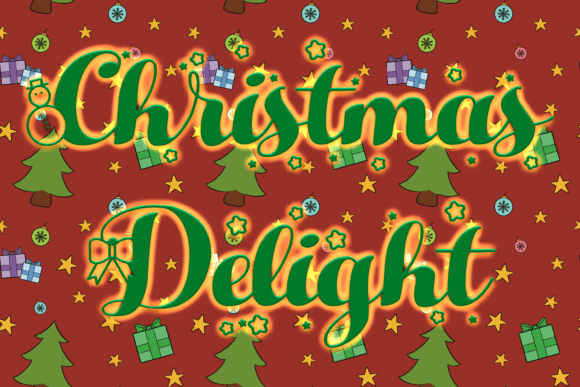
Immerse yourself in the festive spirit with Christmas Delight, a captivating script display font that exudes warmth and cheer. Its exquisite curves and jolly strokes add a touch of magic to your holiday designs, making them come alive with the essence of the season.
With Christmas Delight, you can create enchanting invitations that sparkle like snowflakes, greeting cards adorned with wreaths and ribbons, and social media posts that spread joy and merriment. Craft stunning flyers for Christmas events, festive menus that tingle the taste buds, and eye-catching posters that draw people in like moths to a flame.
Let your imagination run wild as you explore the boundless possibilities of Christmas Delight. Design apparel that tells the story of Santa's journey, home décor that evokes the coziness of a winter wonderland, and packaging that transforms gifts into treasures. Create whimsical logos that capture the essence of your brand's holiday spirit, or use it in digital marketing campaigns that spread cheer like wildfire.
Christmas Delight is not just a font; it's an experience. It transports you to a realm of festive wonder, where creativity flows like eggnog and the spirit of giving dances in the air. Its versatility knows no bounds, making it the perfect companion for all your holiday projects.
So, embrace the magic of Christmas Delight and let your designs shine brighter than the North Star. Make this holiday season truly extraordinary with a font that captures the essence of joy, love, and wonder.